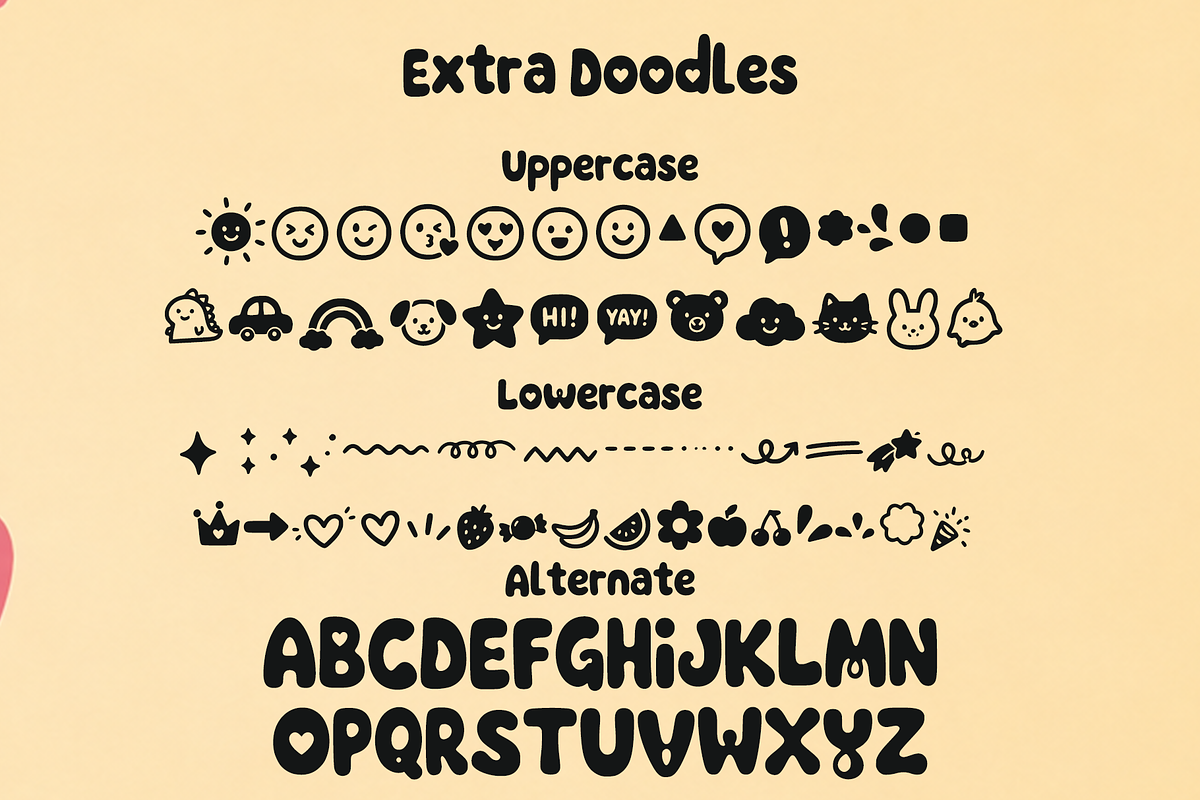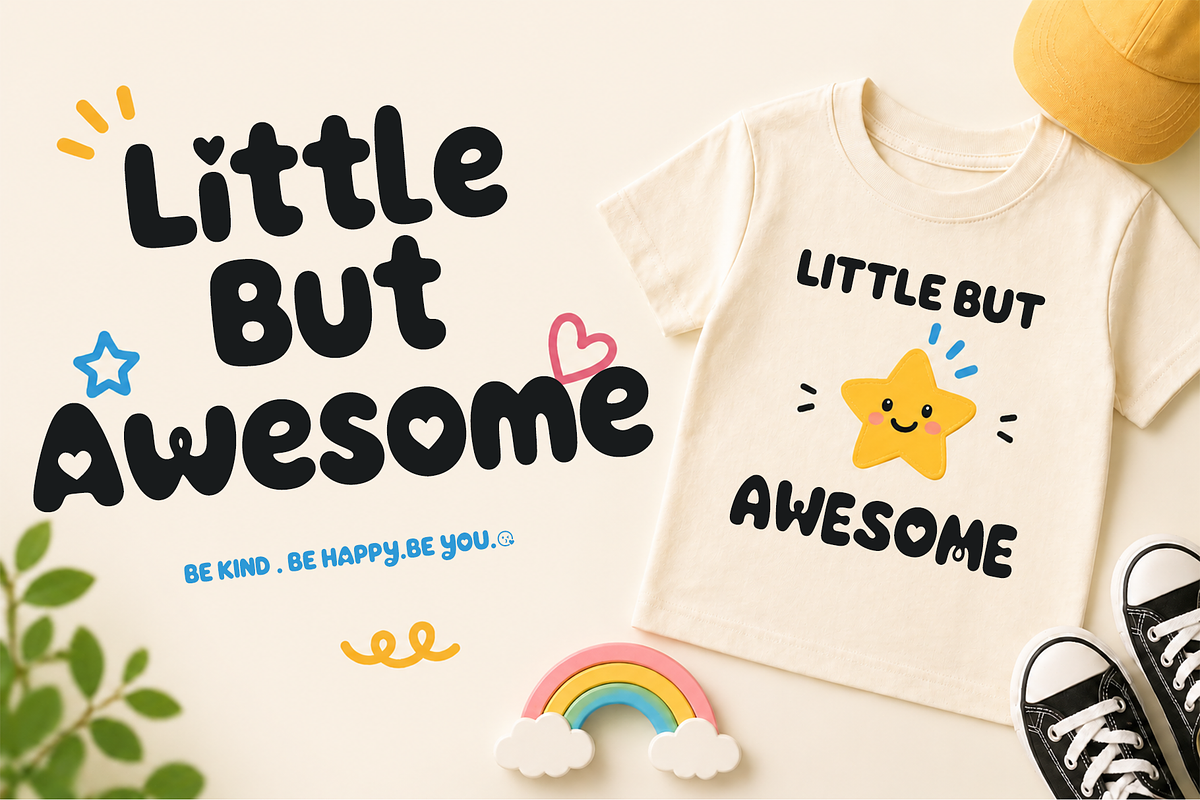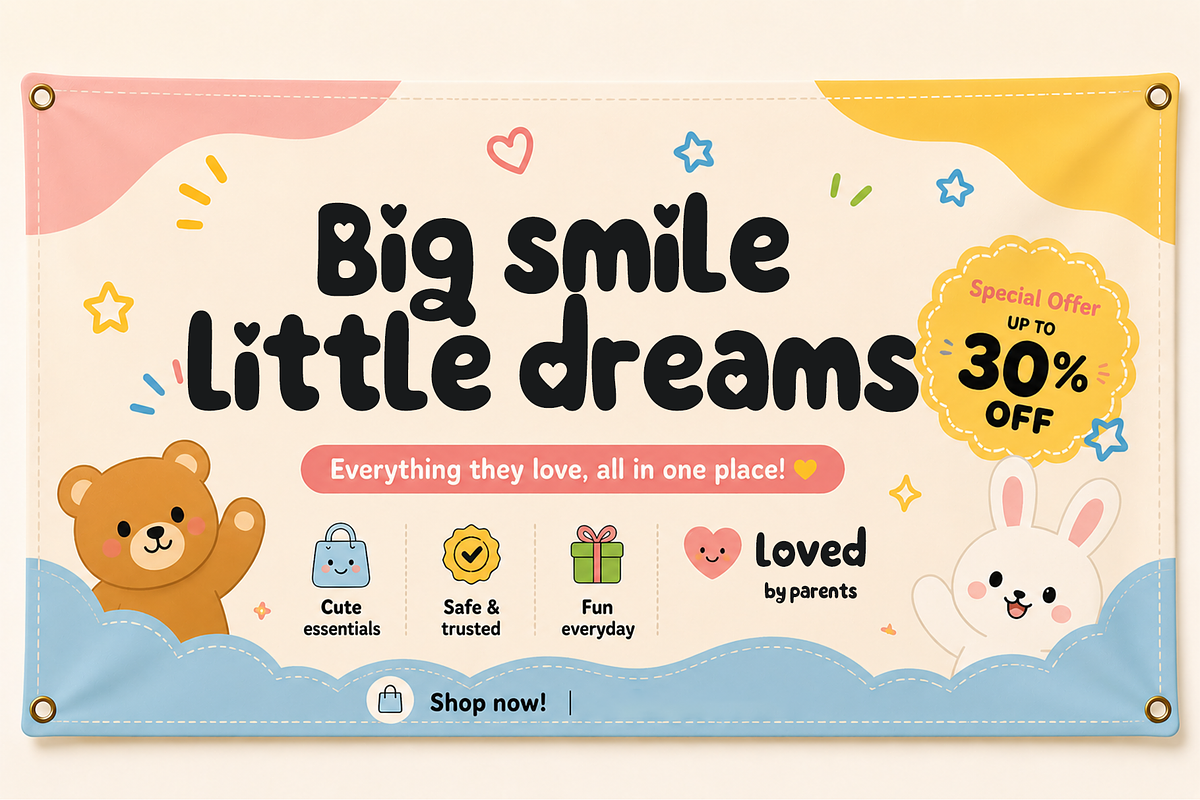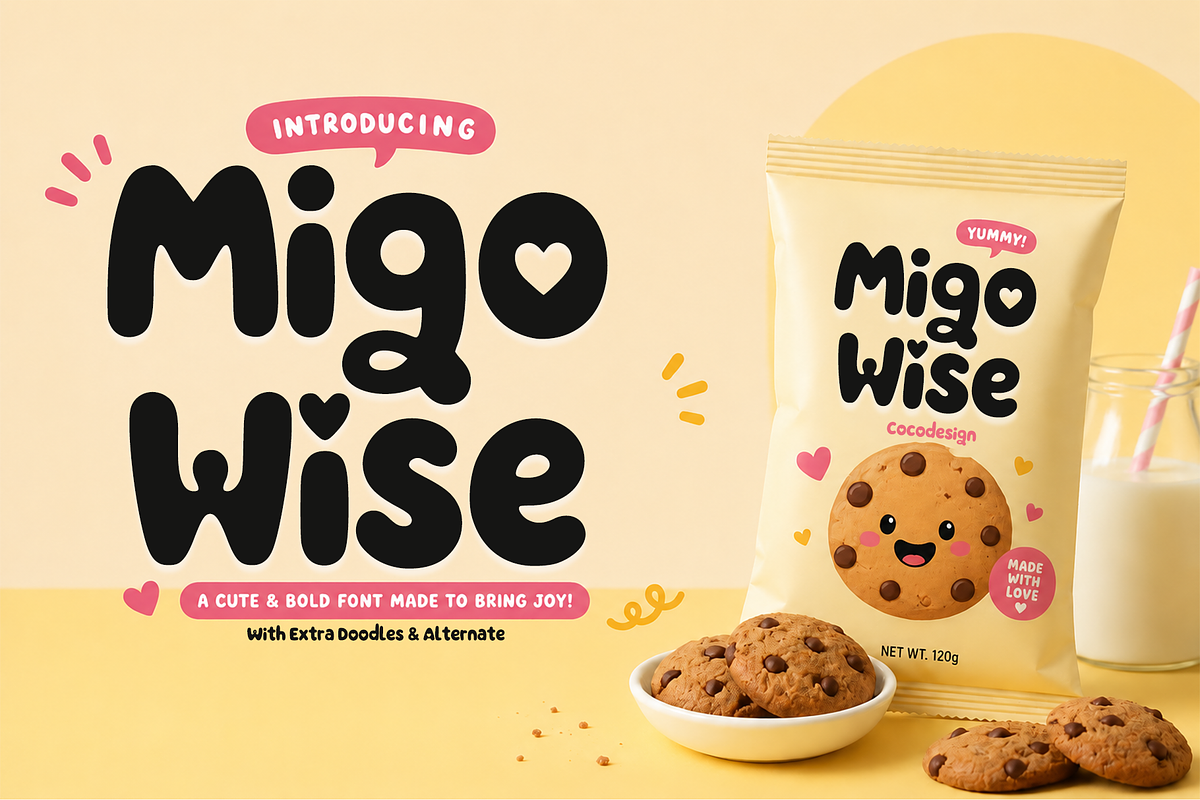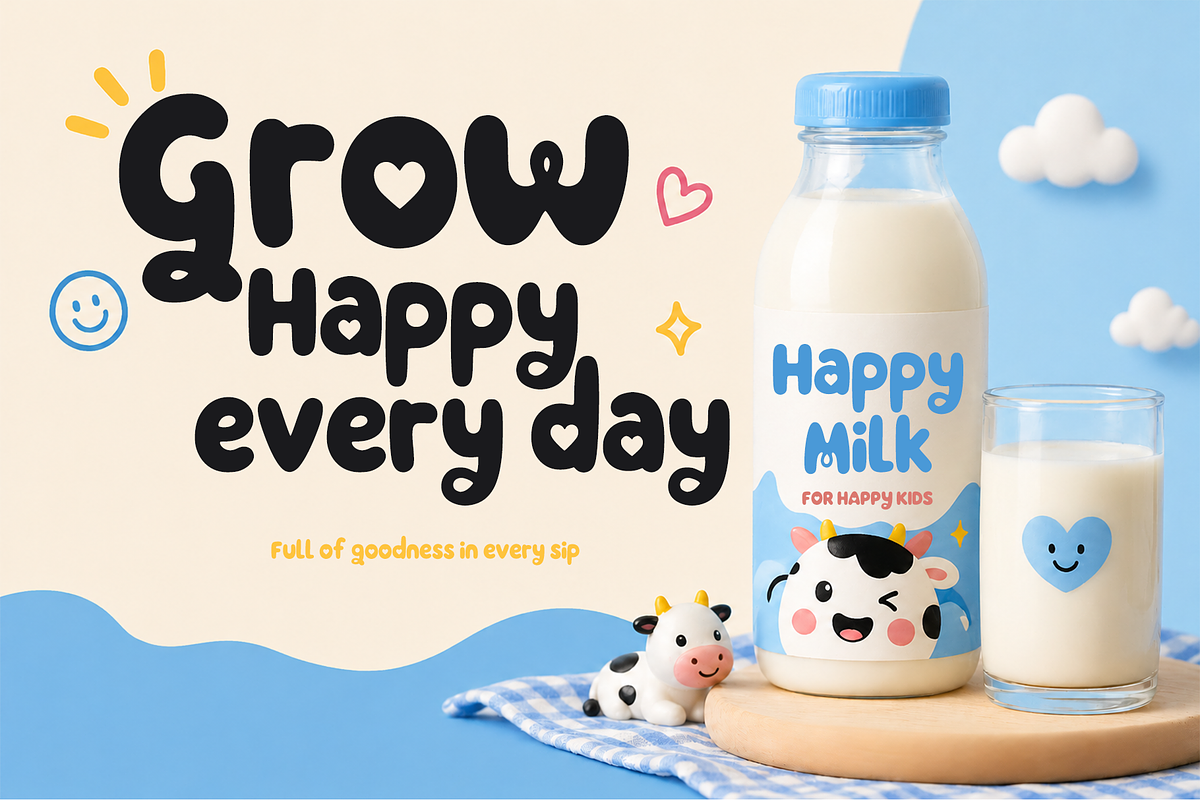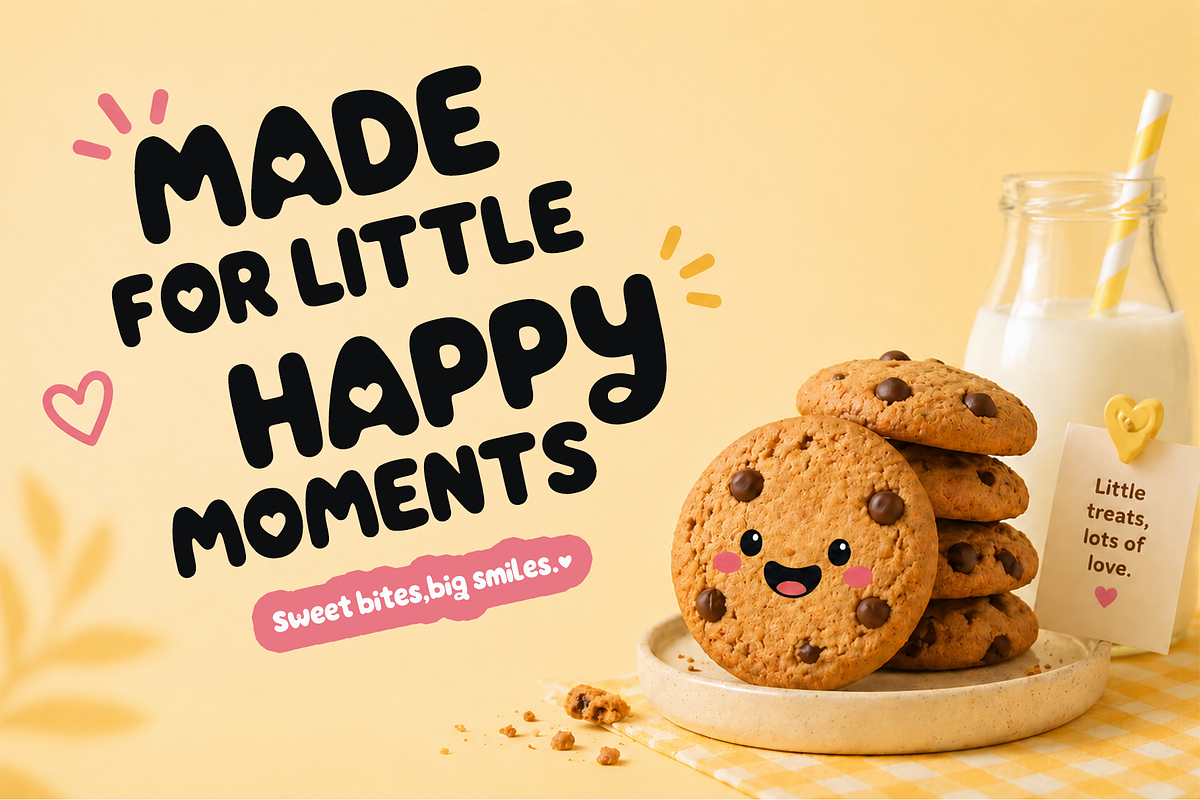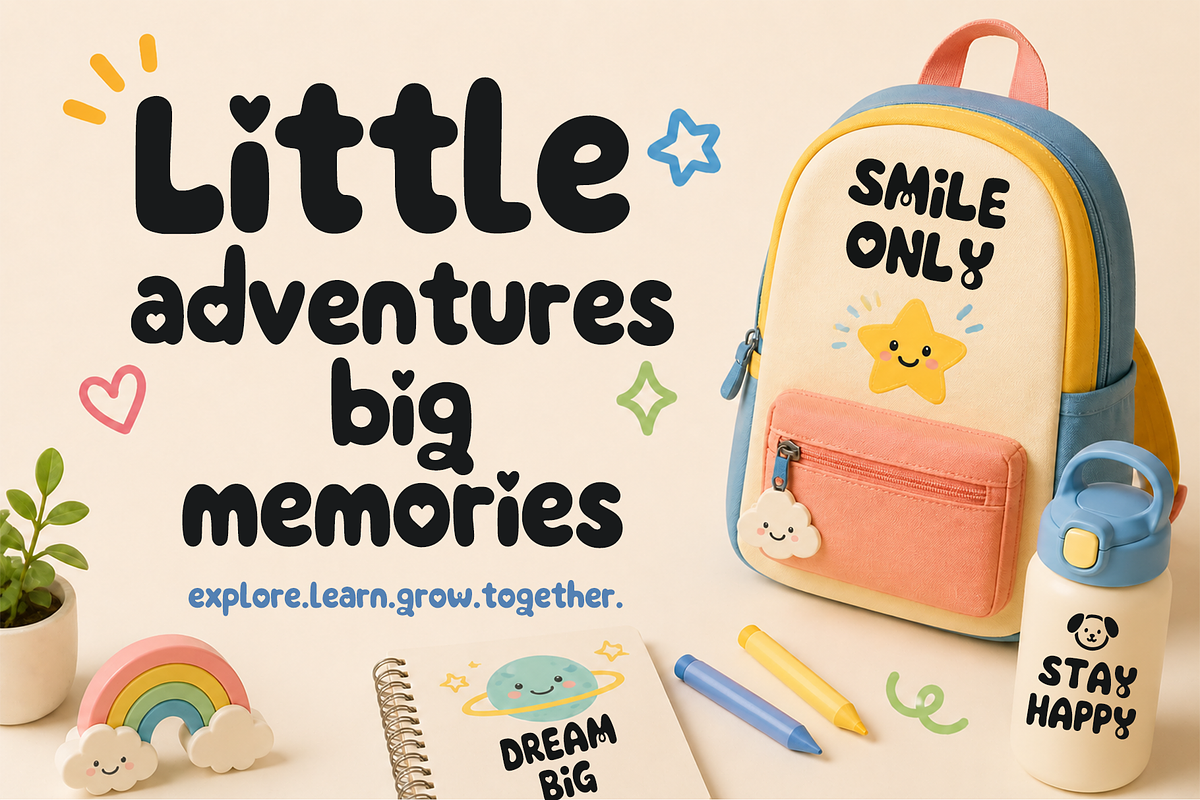
Migo Wise is a playful
Migo Wise is a playful display font with bold rounded shapes, cheerful character, and a fun handcrafted feel. Designed to bring warmth and joy into every project, this font combines cute aesthetics with clean readability, making it perfect for eye-catching designs.
Featuring chunky letterforms, adorable heart details, and smooth curves, Migo Wise works beautifully for branding, packaging, posters, children’s products, social media, logos, quotes, stickers, merchandise, and creative marketing materials.
This font also includes extra doodles and alternate characters to help create unique and expressive typography compositions with a fun and friendly touch.
Kids branding
Snack & food packaging
Cafe & bakery designs
Toy brands
Posters & banners
T-shirt designs
Social media content
Logos & headlines
Cute product packaging
Creative craft projects
Uppercase & lowercase
Extra doodles
Migo Wise delivers a cute, bold, and modern display style that stands out across both digital and print designs.